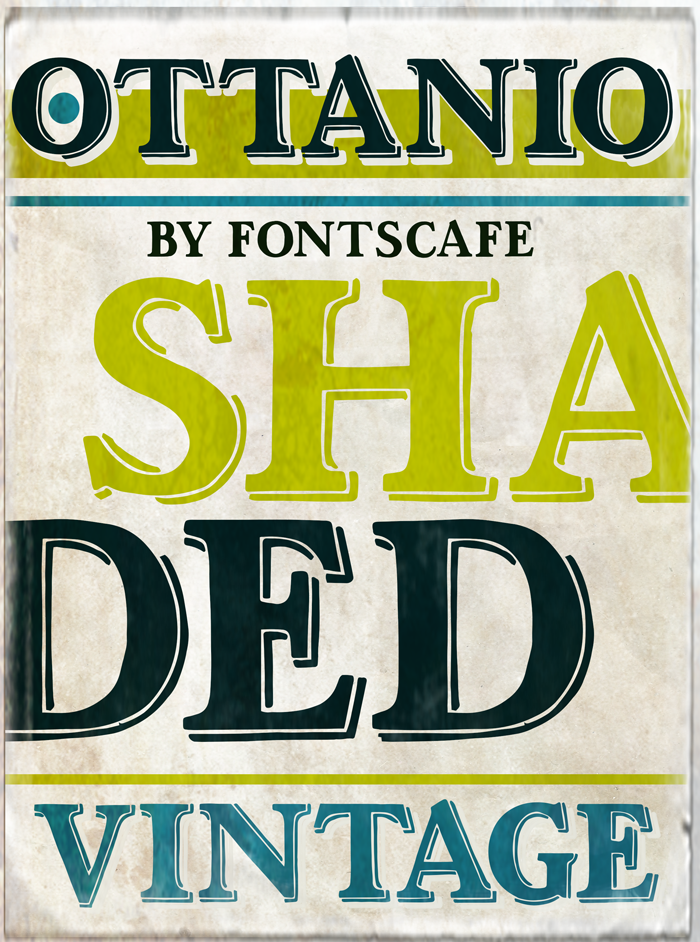
As the most classic and traditional style pack of the Fonts Caf�, the "Ottanio Shaded" font https://fontscafe.com/font/ottanio-shaded (one of the 3 in the whole "Ottanio Pack" https://fontscafe.com/fonts-packages/ottanio-pack ) take a place of honor in the list of the Fonts Caf� handmade Vintage style fonts. Clearly born for being noticed, the boldness and the almost imperceptible, but present to the eyes of subconscious mind, irregularities of the Ottanio Family has been well balanced to create a set of handmade Serif fonts that can be used as �jack of all trades� where traditions, origins and a touch of Vintage style are required, the perpetual solution always useful to have on hand! Terms of Use (short version): It's okay to use this DEMO version of "Ottanio Shaded" font for personal, non-commercial uses like designing greeting cards, invitations, labels, posters and even to create graphics for your personal blog. HOWEVER, if you decide to use this, or any other Fonts Caf� font for your business, please purchase a license: the prices are fair and you will be supporting a small, nice, independent font company. :) The typefaces we design and sell on our secure website are our livelihood. |